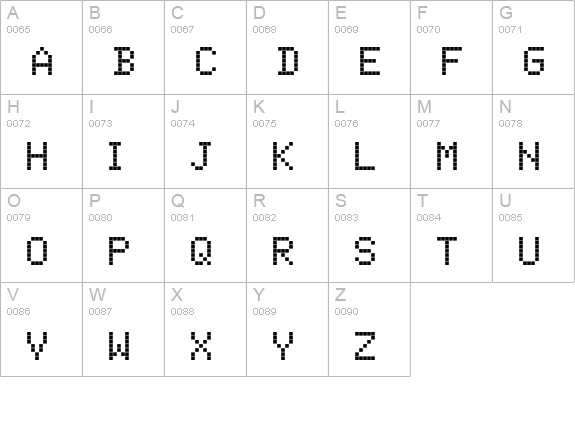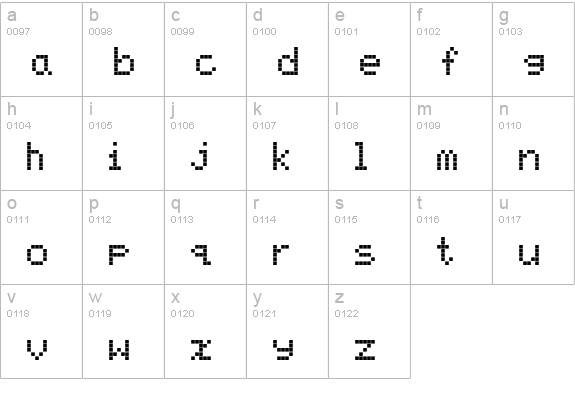
ScreenMatrix-Regular Font Details
ScreenMatrix-Regular is the standard, neutral variant in the ScreenMatrix typeface family \xE2\x80\x94 well suited to general body text, paragraphs, and standard typographic work.
ScreenMatrix-Regular is a stylish and versatile font that is sure to make a statement in any design project. With its clean lines and modern aesthetic, this font is perfect for creating eye-catching headlines, logos, and posters. The unique design of ScreenMatrix-Regular combines elements of both retro and futuristic styles, giving it a timeless appeal. Its bold and sharp letterforms ensure that your text will always be easy to read, even at small sizes. One of the best things about ScreenMatrix-Regular is that it is free to download. You can find this fantastic font at FontsMarket.com, where it is available for immediate download. Whether you're a professional designer or a hobbyist, this font is a valuable addition to your collection. With ScreenMatrix-Regular, you'll have the freedom to create stunning designs without any limitations. Its versatility allows it to be used across a wide range of projects, from branding and advertising to web design and social media graphics. So why wait? Download ScreenMatrix-Regular today and let your creativity run wild. Its sleek and modern design, combined with its free availability, makes it an excellent choice for any design project. Don't miss out on this opportunity to elevate your work and make a lasting impression.